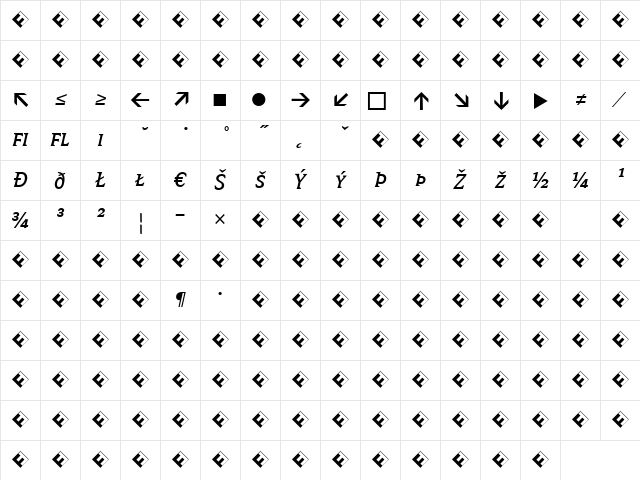
Avance Regular Italic
Style: Regular Italic
Foundry: Evert Bloemsma, published by Fontshop International for the FontFont library
Design Context for Avance
Avance is a composed and adaptable typeface that performs quietly and consistently across a wide range of design contexts. The slanted form adds forward momentum and visual energy.